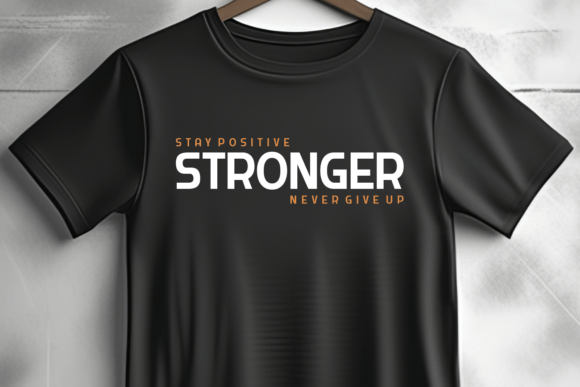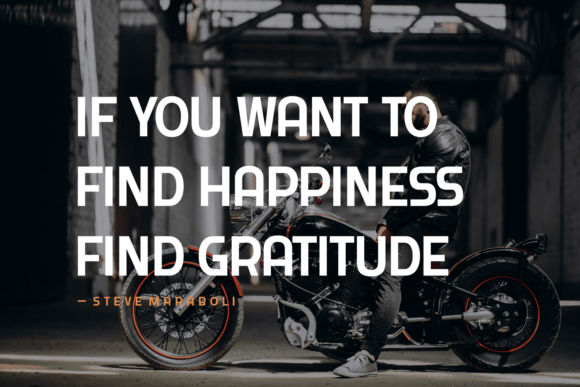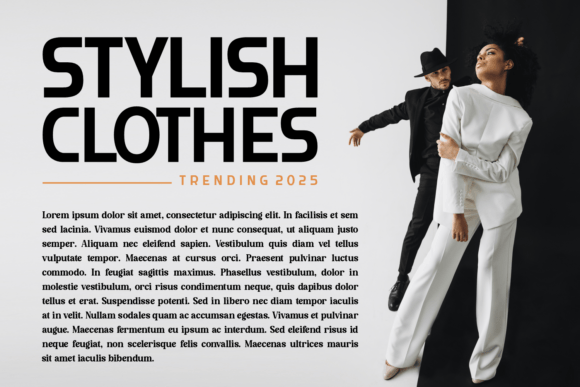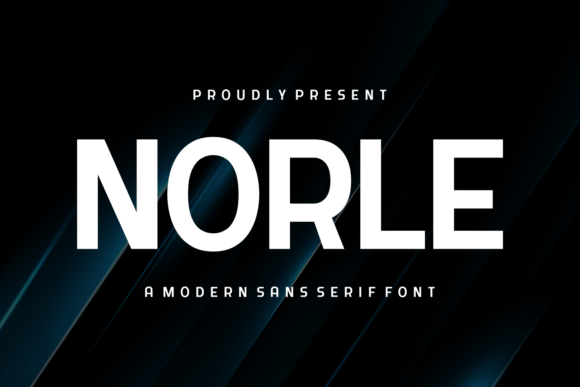
Introduction to Norle Font
Norle is a modern, minimalist sans-serif font with clean lines and balanced proportions.
Its sleek design offers versatility, making it ideal for branding, web design, and editorial projects Norle’s contemporary aesthetic ensures readability and elegance, blending style with functionality for impactful visual communication.
Key Features of Norle Font
Why Choose Norle Font?